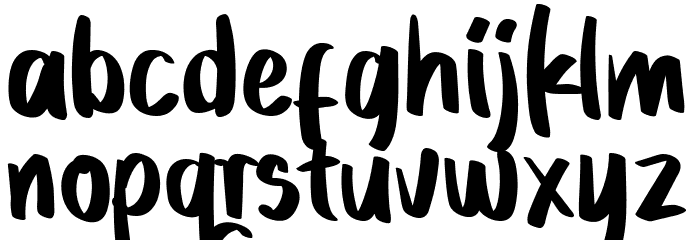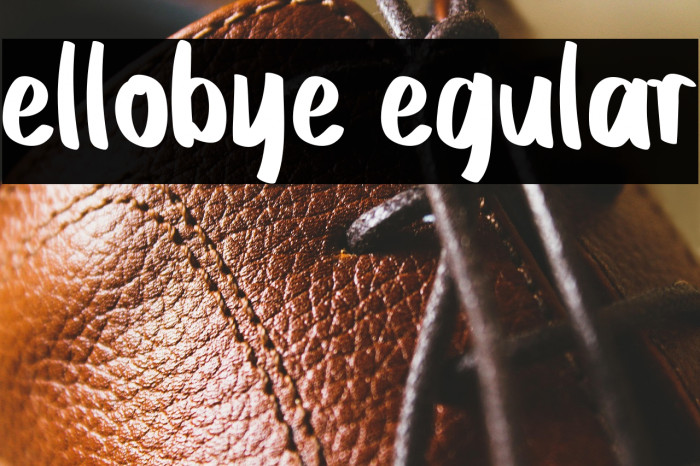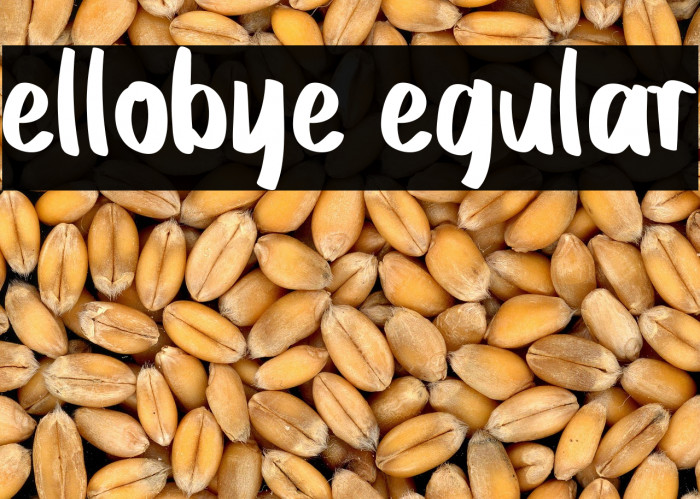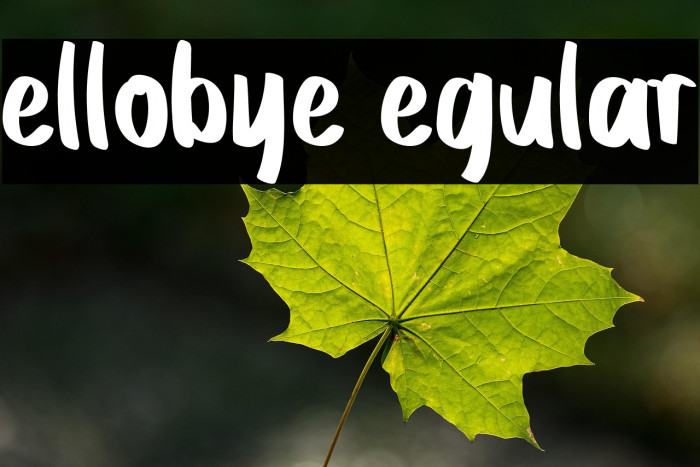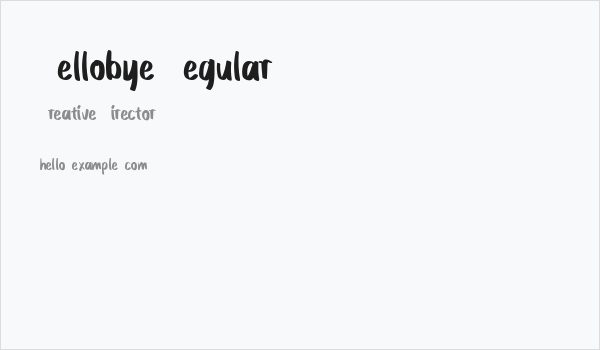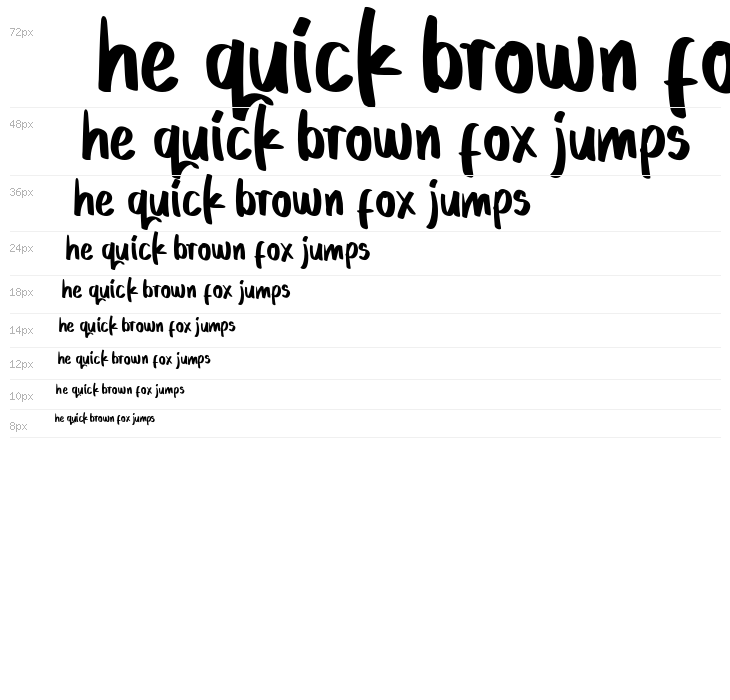
Hellobye Regular Font
This font features a playful and whimsical handwritten style, characterized by its bold and slightly irregular letterforms. The strokes are thick and rounded, giving it a friendly and approachable appearance. The letters have a casual, informal feel, with some variation in height and slant, adding to its charm. This font is ideal for projects that require a touch of personality and creativity, such as children's books, greeting cards, or playful branding materials. Its unique style makes it stand out, while still being legible and easy to read.
A playful, bold handwritten font with thick, rounded strokes.
- Proposed Projects: Ideal for children's books, greeting cards, playful branding, and creative projects.
- Category: Handwritten
- Overall Style: Playful, Whimsical
- Use Case: Headlines, Logos, Creative projects